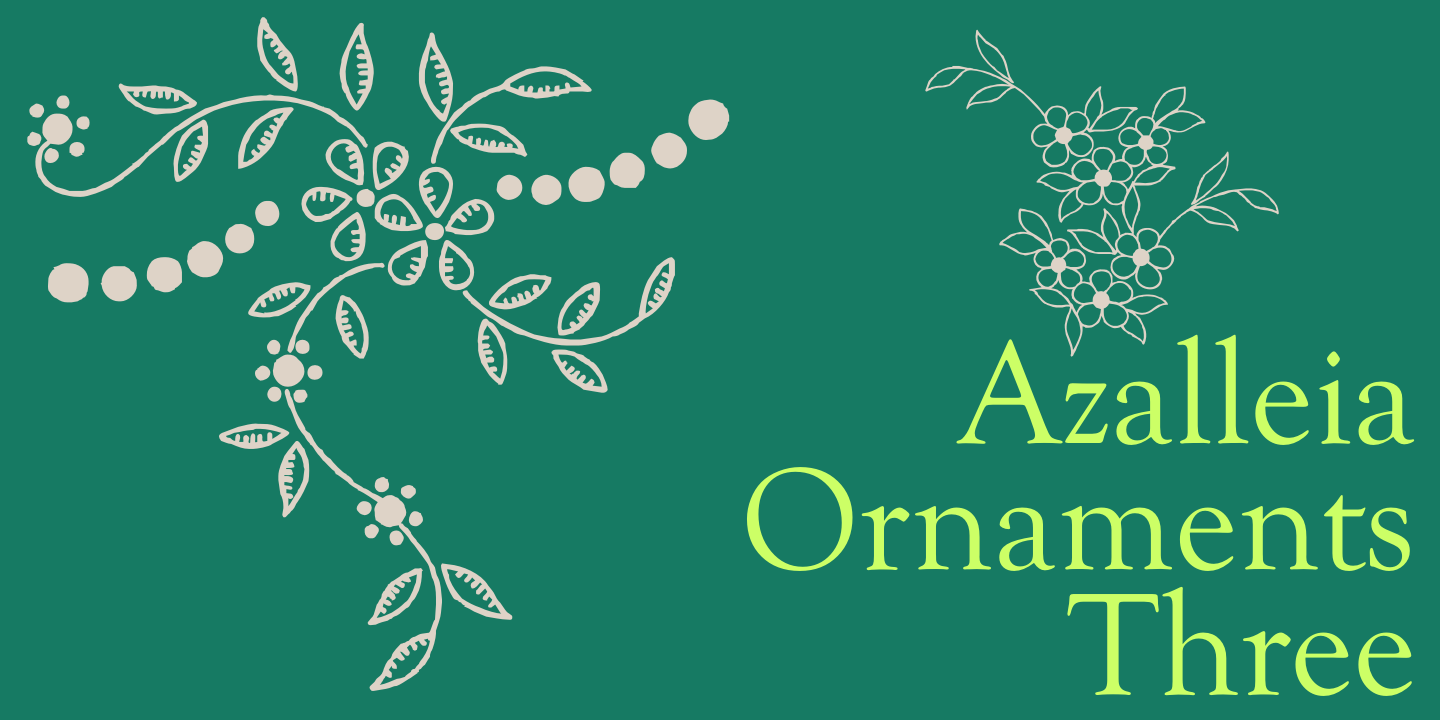
The Azalleia Ornaments Font Free Download is a decorative typeface filled with elegant flourishes and ornamental details, perfect for wedding invitations, luxury branding, packaging design, greeting cards, and sophisticated event materials. Its intricate embellishments add a refined and classic touch.
What makes the Azalleia Ornaments Font so exciting is its ability to elevate designs with beautiful, handcrafted ornamentation. This font transforms simple text into exquisite works of art, making your projects stand out with grace and style.
The Azalleia Ornaments Font family includes a variety of swashes, frames, and decorative elements, allowing designers to create elaborate and captivating layouts.